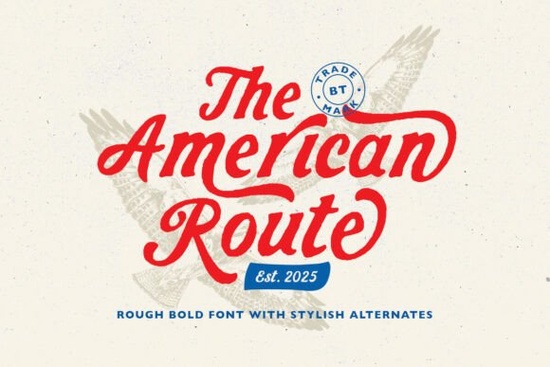
If you're looking for a font that embodies the spirit of the open road and vintage charm, American Route Font is a fantastic choice. This bold, vintage-inspired script font brings a rugged, handcrafted feel to any design project. Whether you're working on retro logos, Americana-themed designs, or signage, American Route offers a unique blend of rough textures and stylish alternates that can add a touch of nostalgia and freedom to your work.
Why Choose American Route Font?
American Route stands out with its dynamic energy and versatile use cases. The font's rough textures and swashy flourishes make it perfect for creating designs that evoke a sense of heritage and adventure. Here are a few reasons why designers, crafters, and small businesses might find this font particularly appealing:
- Vintage Aesthetic: The font's vintage-inspired style makes it ideal for projects that require a classic, timeless look.
- Rugged Charm: The rough textures give the font a handcrafted, authentic feel, adding character and depth to your designs.
- Stylish Alternates: With multiple stylistic alternates, you can customize the font to fit your specific design needs, making each project unique.
- Versatility: Suitable for a wide range of applications, from logos and signage to apparel and print-on-demand products.
Perfect for Retro and Americana Designs
One of the standout features of American Route is its ability to bring a nostalgic spirit to your designs. If you're working on a project that requires an Americana theme, this font is a great choice. Its bold, energetic style can help you create designs that feel both classic and modern. For example, if you're designing a logo for a local diner or a T-shirt for a vintage car show, American Route can provide the perfect touch.
How to Use American Route in Your Projects
Incorporating American Route into your designs is straightforward. Here are some tips to get the most out of this versatile font:
- Experiment with Stylistic Alternates: Take advantage of the different stylistic alternates to add variety and uniqueness to your text.
- Combine with Complementary Fonts: Pair American Route with a clean, sans-serif font like Gita Lian to create a balanced and visually appealing design.
- Use for Headings and Titles: The bold, dynamic nature of American Route makes it ideal for headings and titles, where it can grab attention and set the tone for your design.
- Apply to Signage and Apparel: Consider using American Route for signage, t-shirts, and other print-on-demand products to give them a distinctive, vintage look.
Comparing American Route with Other Script Fonts
While American Route has its unique qualities, it's helpful to compare it with other popular script fonts to see how it fits into your design toolkit. For instance, Bardguine Serif Script Duo offers a more elegant and refined style, while Wedding Font is perfect for romantic and delicate designs. Summer Beach Font provides a relaxed, summery vibe, and Lemonhoney Duo Font combines a playful script with a clean sans-serif for versatility.
Each of these fonts has its strengths, and choosing the right one depends on the specific mood and style you want to achieve. American Route, with its bold and rugged charm, is particularly well-suited for projects that need a strong, vintage-inspired presence.
Final Tips for Using American Route Font
To get the best results with American Route, keep these practical tips in mind:
- Test Different Sizes and Colors: Experiment with various sizes and colors to see what works best for your design. Bold, vibrant colors can enhance the font's dynamic energy.
- Pay Attention to Spacing: Adjust the kerning and tracking to ensure that the text is readable and visually appealing. This is especially important for longer texts or smaller sizes.
- Combine with Graphics and Elements: Integrate American Route with complementary graphics and design elements to create a cohesive and impactful design. Consider using retro illustrations or vintage textures to complement the font.
By following these tips, you can effectively use American Route Font to add a touch of vintage charm and dynamic energy to your creative projects. Whether you're designing a logo, a T-shirt, or a sign, this font is a versatile and stylish choice that can help you achieve the perfect look.